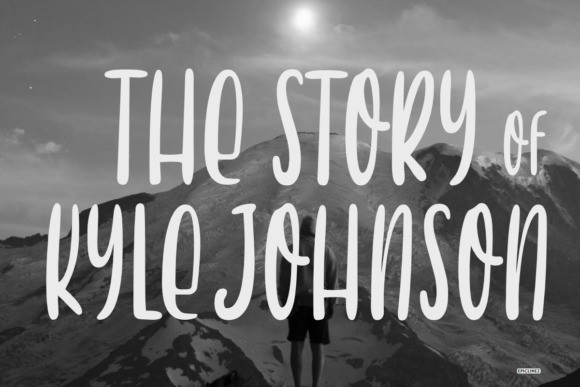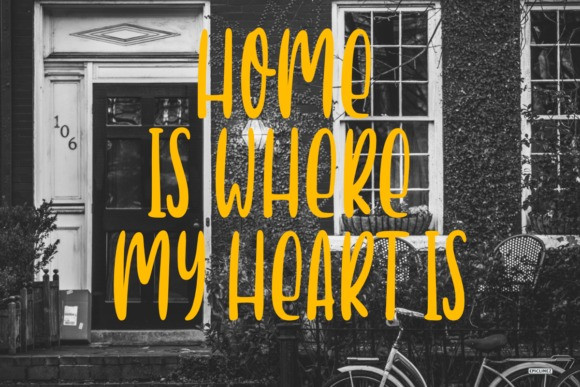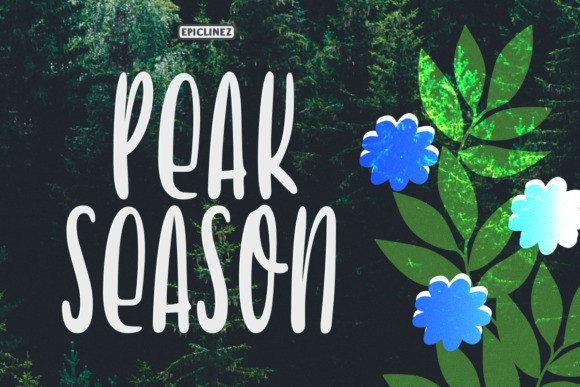
Peak Season Display Font
Peak Season is a cute and casual display font with an incredibly friendly feel. Peak Season is the perfect font for making original and outstanding designs.